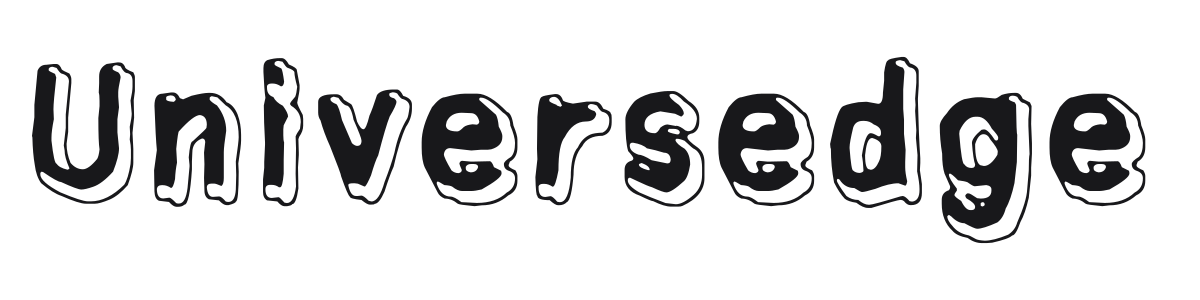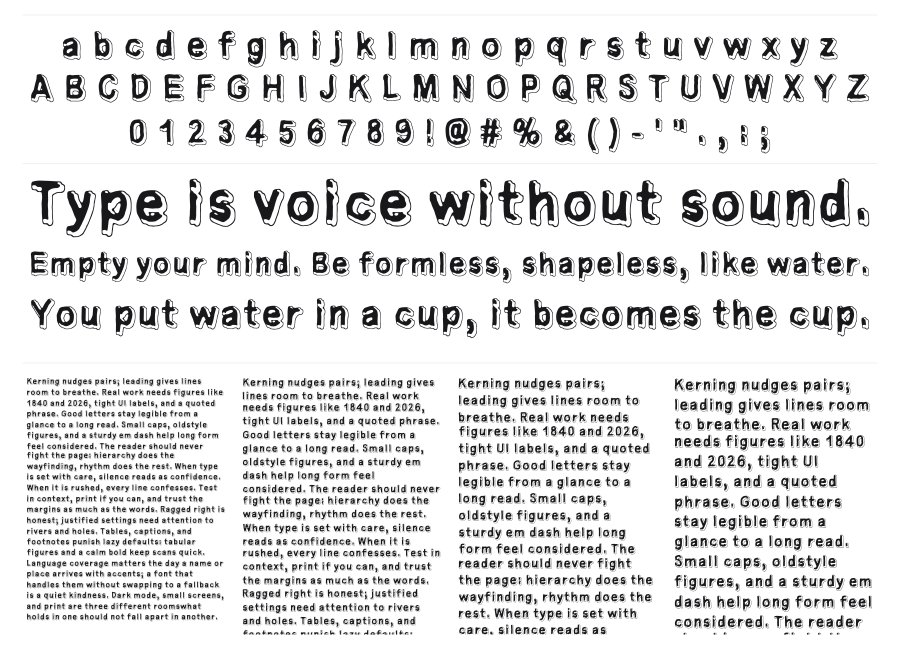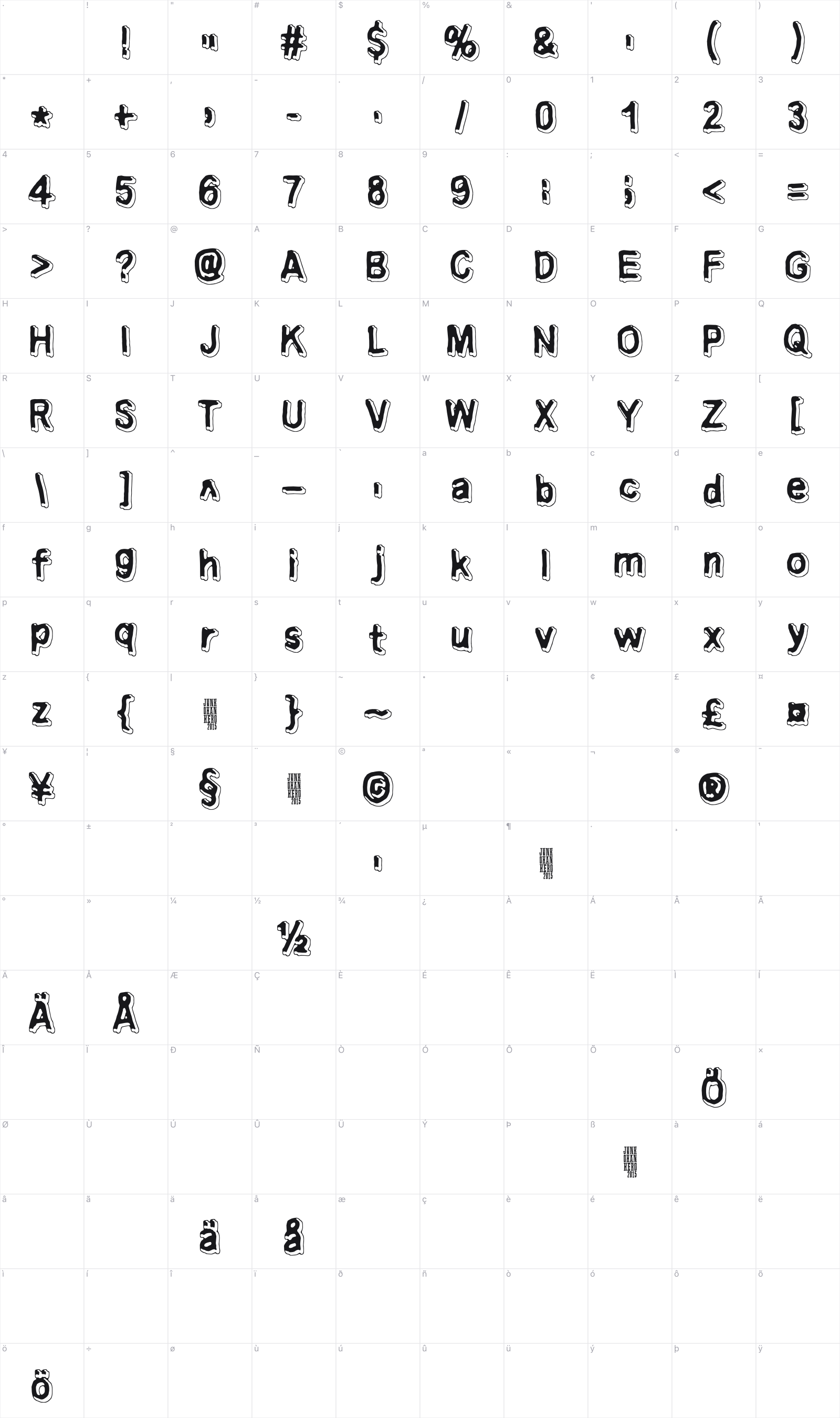
Universedge
Universedge is a bold, chunky display face by junkohanhero with heavily eroded, melting edges that make every character look like it was stamped, worn, or half-dissolved. The rounded forms underneath the distortion keep it playful rather than aggressive. It works best large, where the surface texture reads clearly.